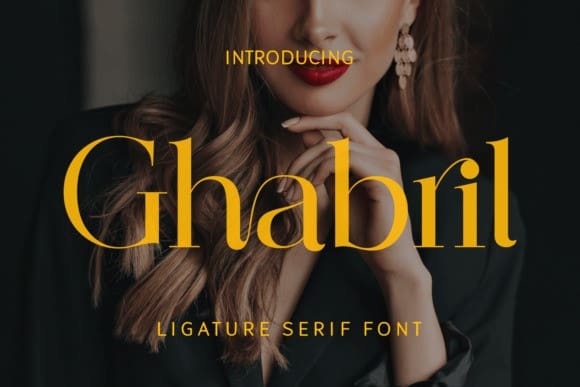
Ghabril Font
Ghabril Font is a sophisticated serif font that combines timeless elegance with modern flair. Its intricate ligatures enhance the overall aesthetic, making it a perfect choice for adding a touch of refinement to your design projects.